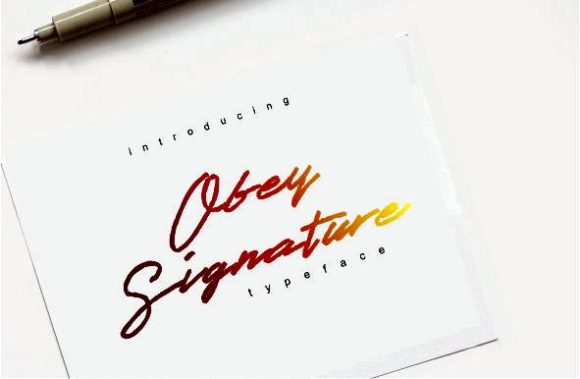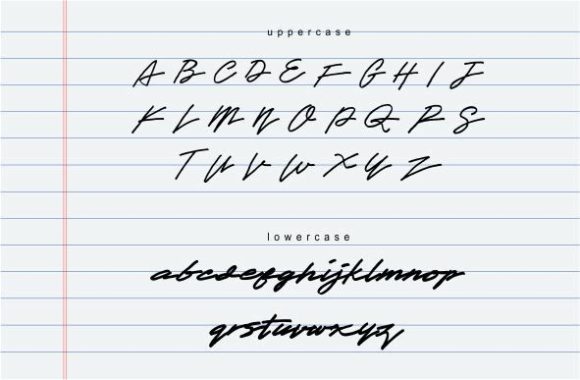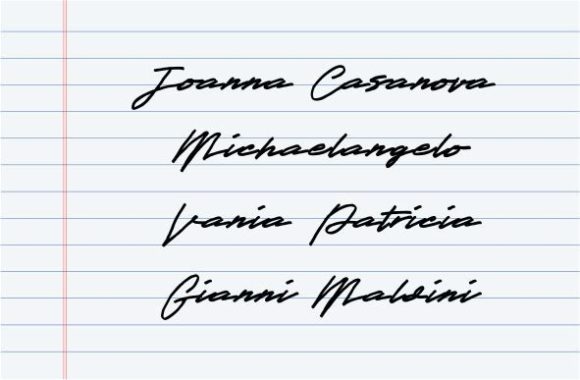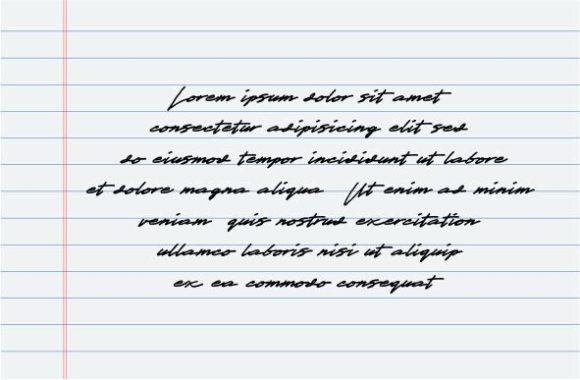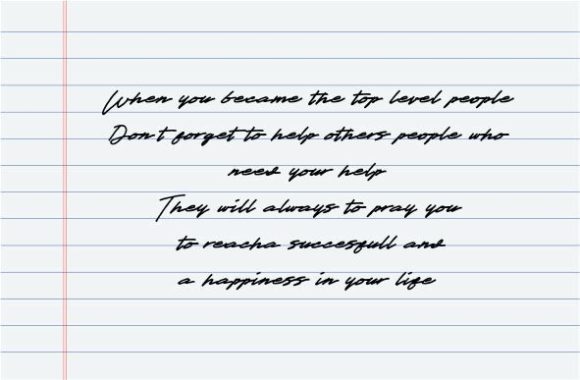
Obey Signature Font
About Obey Signature Font
Obey Signature is a fancy, contemporary signature font. Whether you’re looking for fonts for Instagram or calligraphy scripts for DIY projects, Obey Signature will turn any creative idea into a true piece of art!